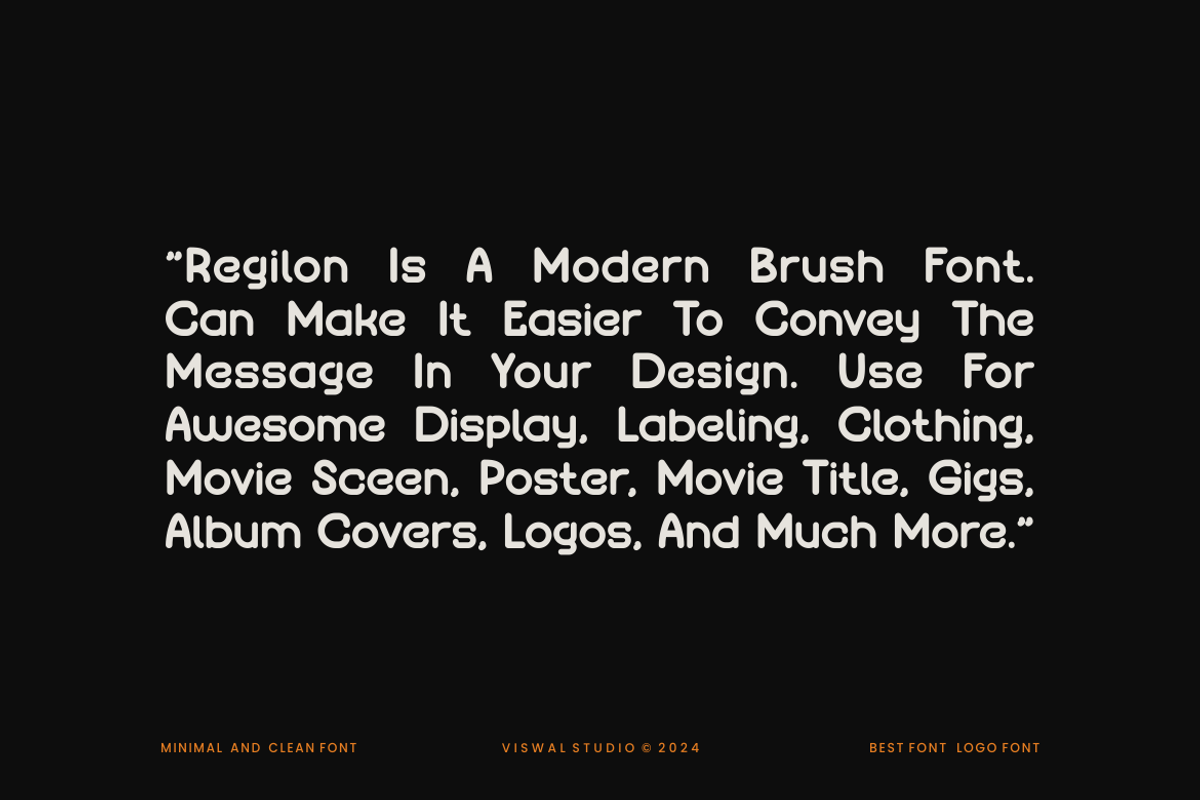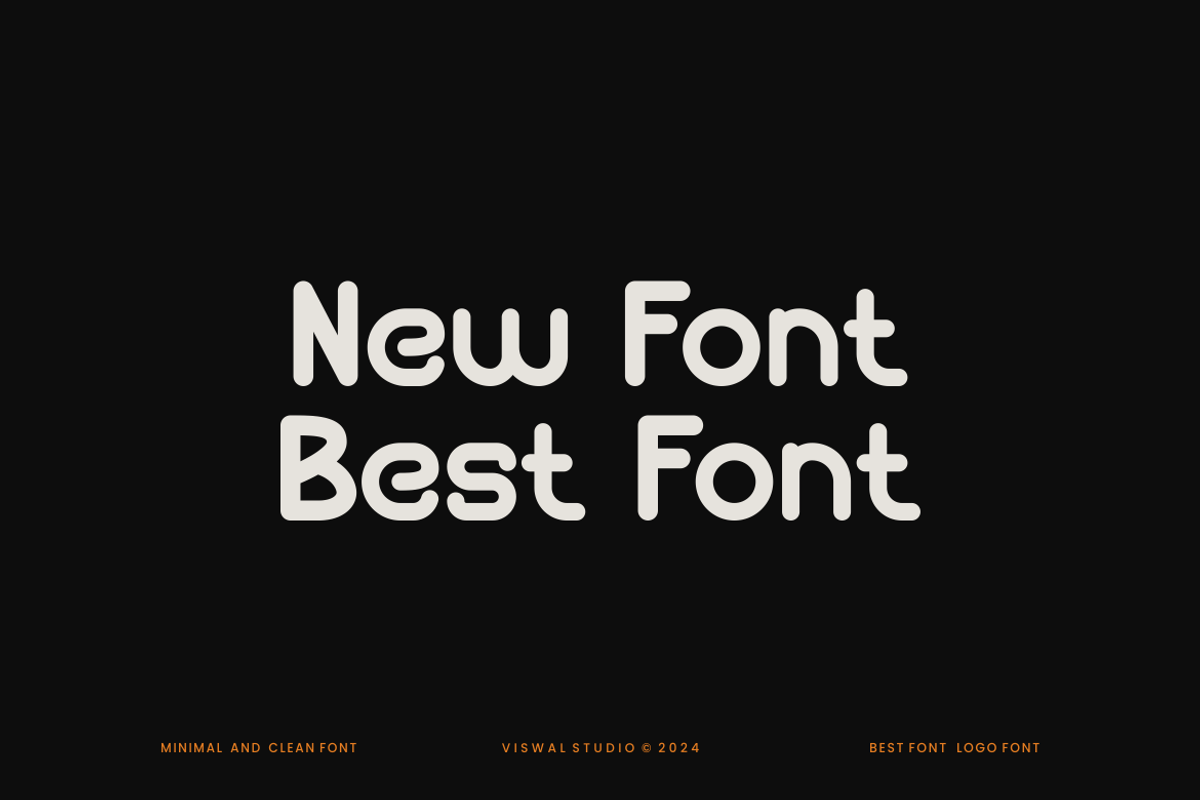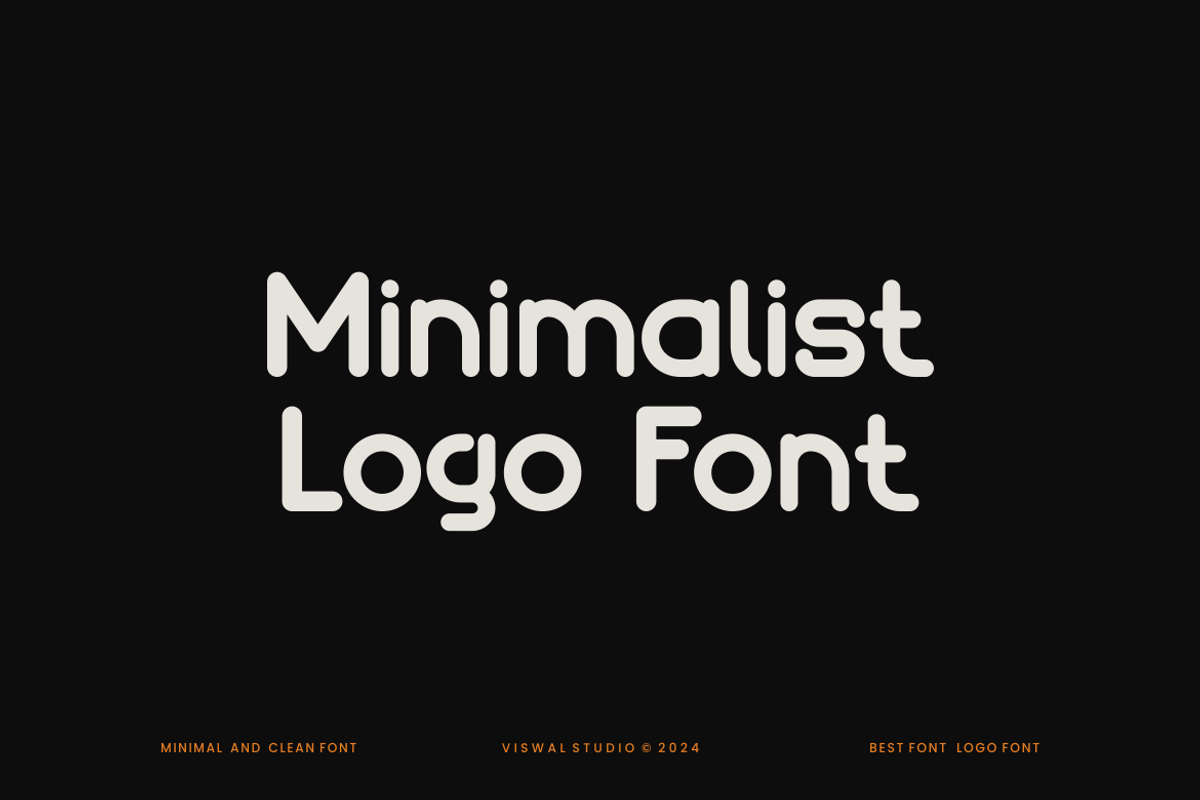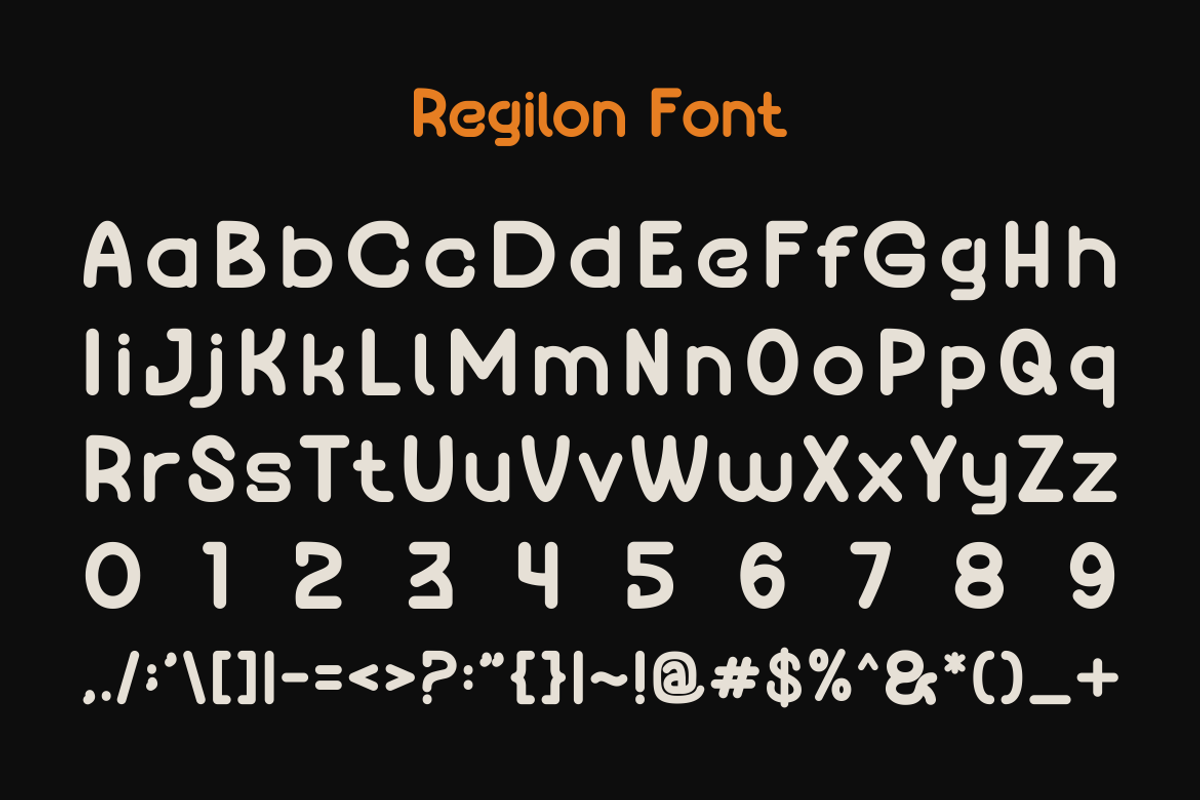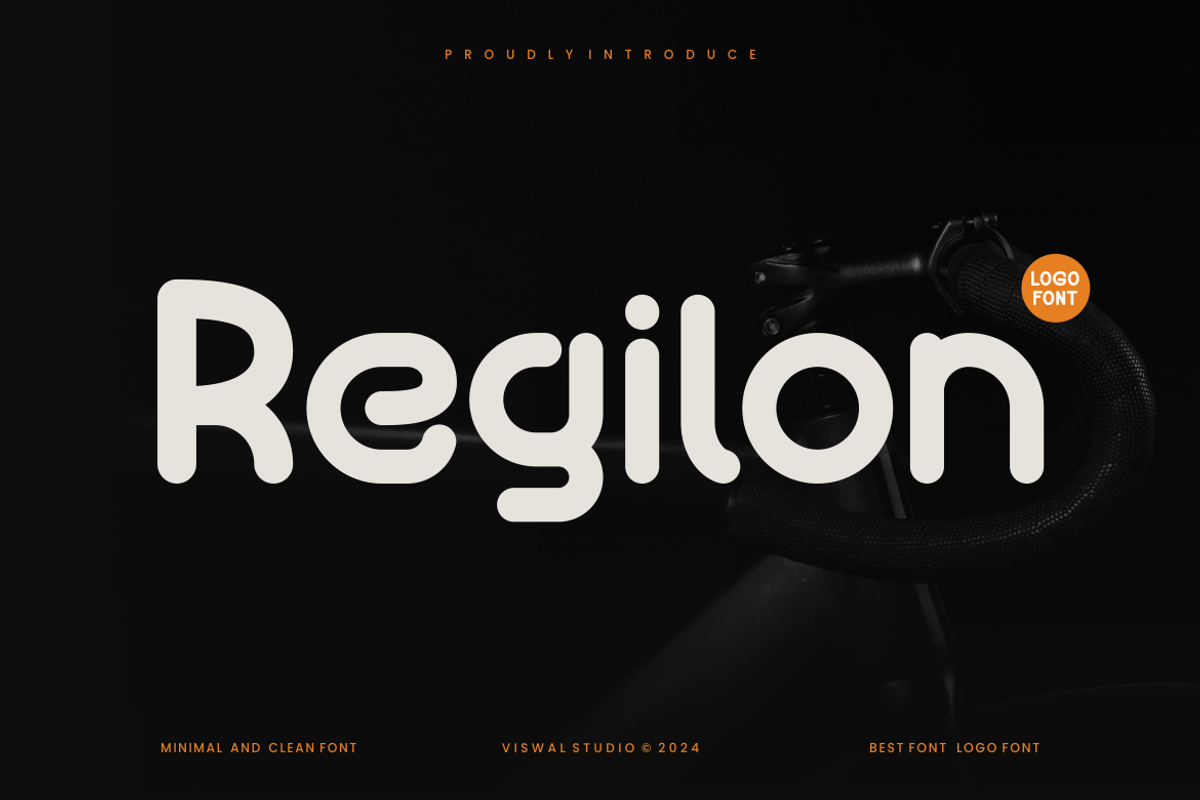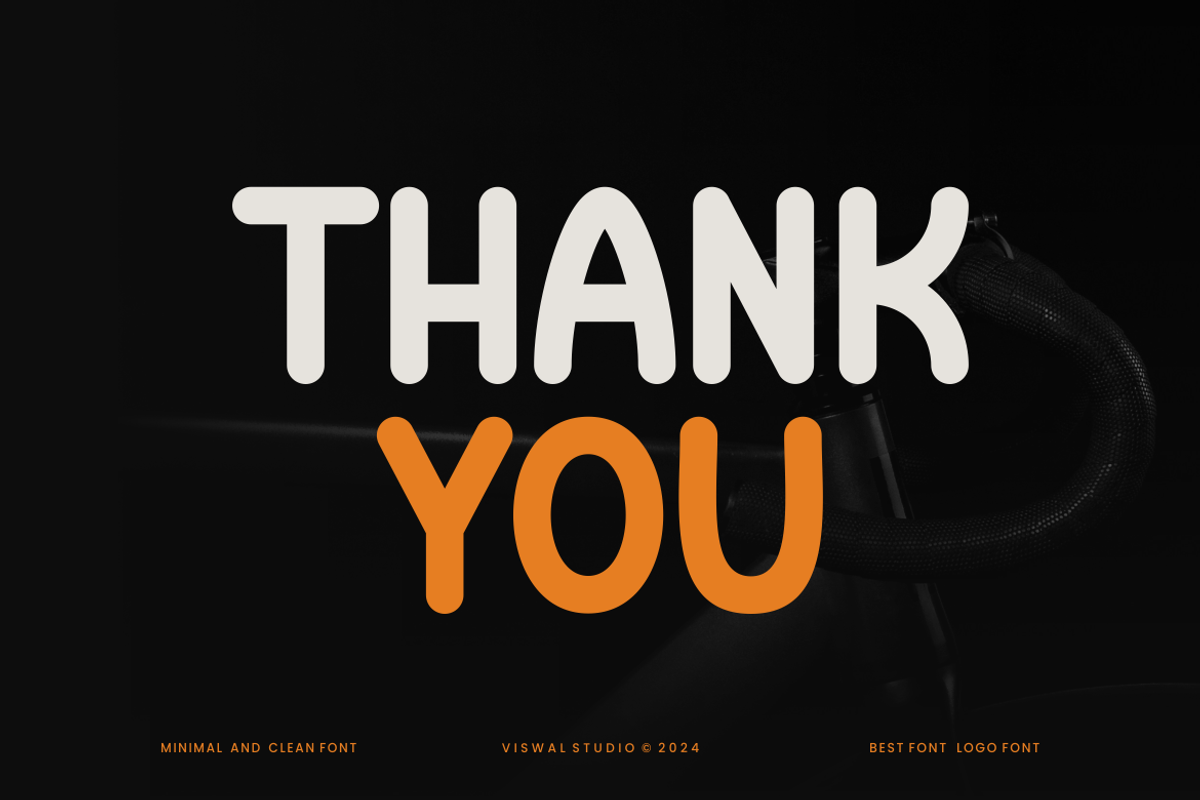
Regilon - Modern Logo Font
Presenting Regilon Is A Modern Logo Font.
Can Make It Easier To Convey The Message In Your Design. Font Is Suitable For Logo, Labels, Badge, Branding, Magazine, Poster, Title, Gigs, Covers And Etc. Our Fonts Have Uppercase & Lowercase, Numeral & Punctuation, And Opentype Features. For Amazing Designs You Can Mix With Other Fonts As A Complement.